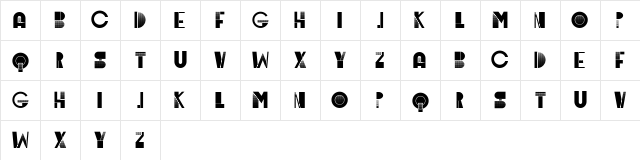
Chop Regular Free Font
Chop Regular
Design Context for Chop
Chop is a composed and adaptable typeface that performs quietly and consistently across a wide range of design contexts.